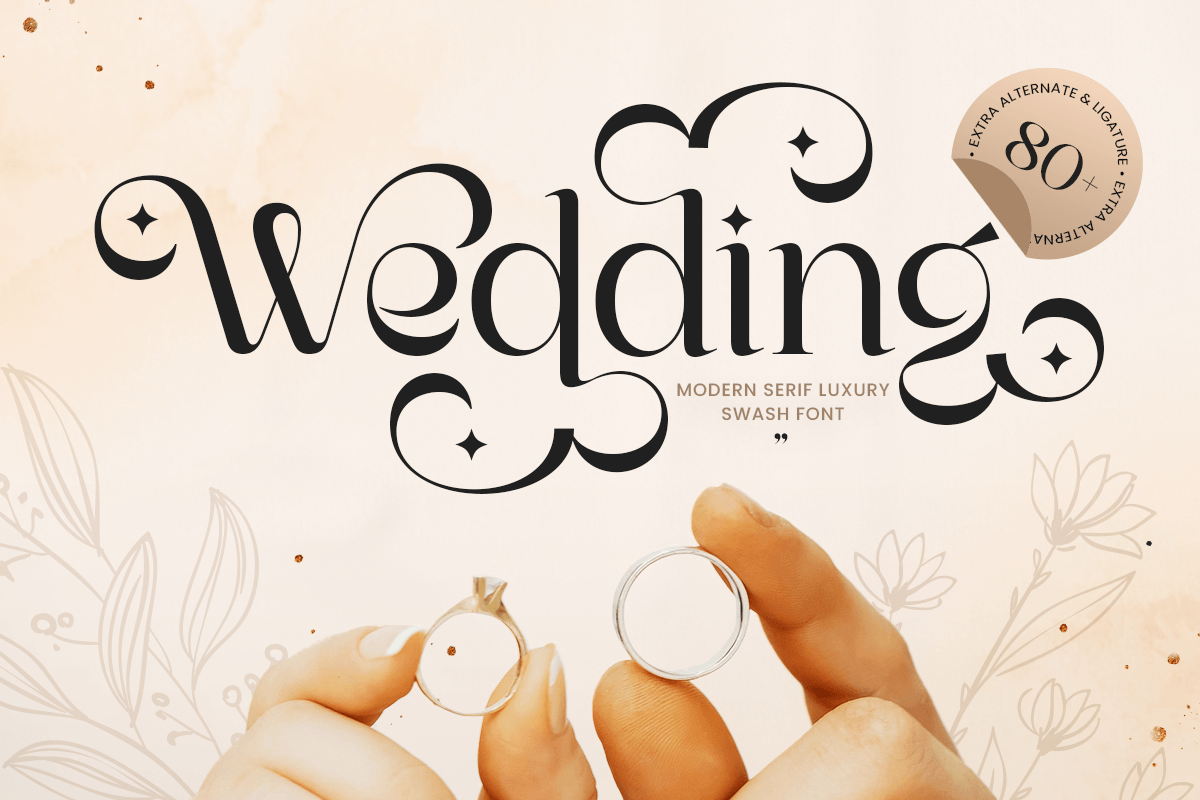
Wedding
-Modern Serif Luxury Swash FontWedding - Modern Serif Luxury Swash Font
Wedding is a modern serif luxury swash font designed to capture romance, elegance, and timeless sophistication. With refined serif details and flowing swash accents, this typeface creates a premium wedding aesthetic that feels graceful, elevated, and beautifully ceremonial.
Perfect for wedding invitations, save-the-dates, monograms, event signage, and romantic editorial layouts, Wedding also shines in luxury branding, beauty packaging, boutique logos, and social media campaigns. Its swash styling adds a signature flourish that makes headlines and names feel more personal, memorable, and high-end.
Whether you’re designing for a luxury wedding studio, a romantic stationery set, or an elegant brand identity, Wedding delivers modern serif beauty with a swash-driven charm made for unforgettable moments.
Wedding – Luxury Swash Serif Features
Modern serif letterforms with elegant luxury swash accents
Perfect for wedding stationery, monograms, and romantic branding
Ideal for invitations, event signage, packaging, and editorials
Premium look for fashion, beauty, and boutique identity systems
Strong readability with decorative swash personality
OpenType features for refined typographic styling
Create unforgettable wedding elegance with Wedding, crafted for modern serif luxury and graceful swashes. 💍✨